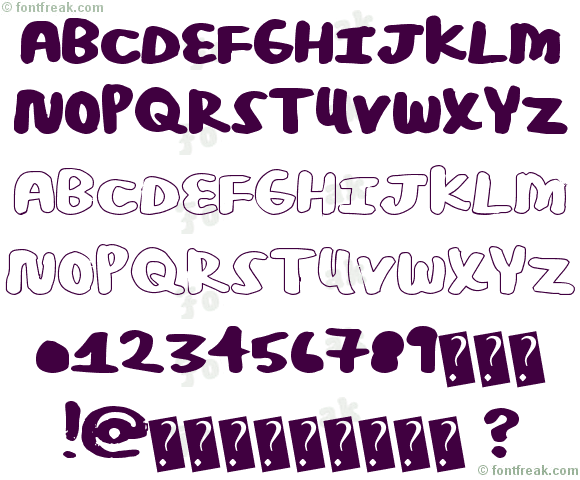
PosterBold
About PosterBold
PosterBold by Xerographer Fonts is a captivating display typeface that commands attention with its playful yet bold character. This font features a unique blend of rounded and angular forms, making it an ideal choice for projects that require a touch of creativity and flair. The moderate stroke weight and contrasting thickness add a sense of dynamism, while the slightly irregular spacing contributes to its handcrafted aesthetic, giving it a friendly and approachable vibe.
PosterBold is particularly well-suited for a variety of applications. Its eye-catching design makes it perfect for movie posters, where grabbing the viewer's attention is paramount. Additionally, it shines in event flyers, where its playful nature can convey excitement and energy. Small business owners can utilize PosterBold for restaurant menus or promotional materials, ensuring that their offerings stand out. Graphic designers looking to add a whimsical touch to their projects will find this font an excellent addition to their toolkit. Content creators can also leverage this typeface in social media graphics, making their posts more engaging and visually appealing.
The target audience for PosterBold includes graphic designers, small business owners, and content creators who appreciate innovative typography that speaks to their brand's personality. The font’s free availability makes it an attractive option for those on a budget, while still offering a high-quality look and feel.
What sets PosterBold apart is its ability to marry fun with functionality. Its distinctive style captures attention without overwhelming the viewer, making it a versatile choice for a wide range of creative endeavors. If you're in search of a font that is both playful and bold, look no further than PosterBold font free download. This typeface is sure to elevate your design projects and leave a lasting impression.